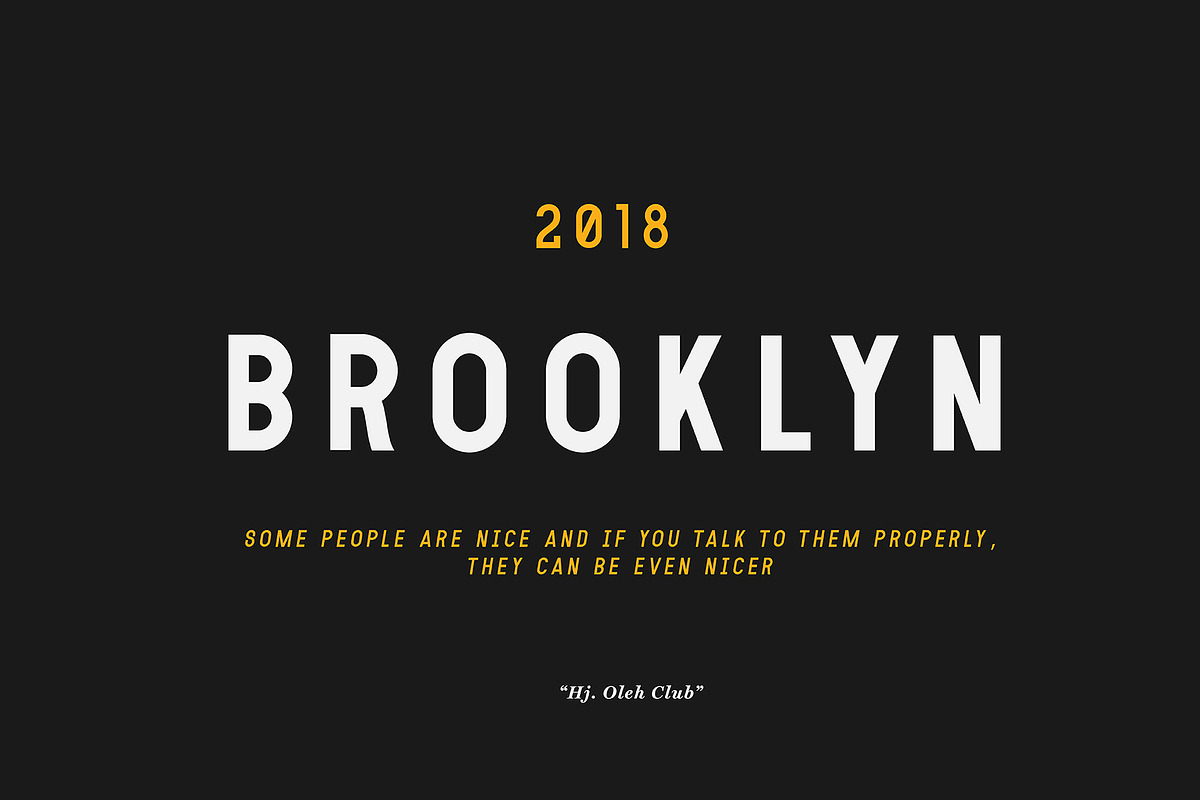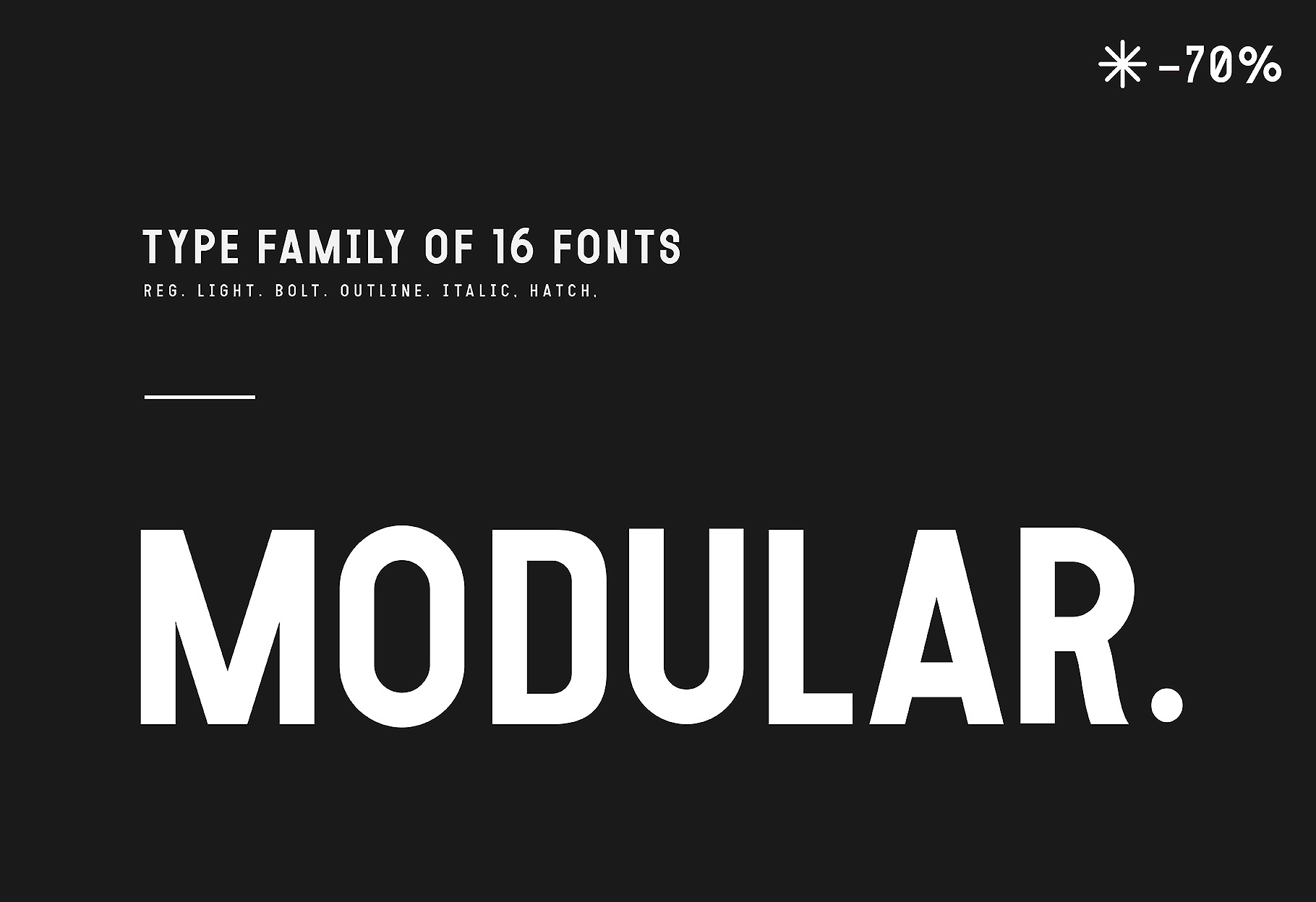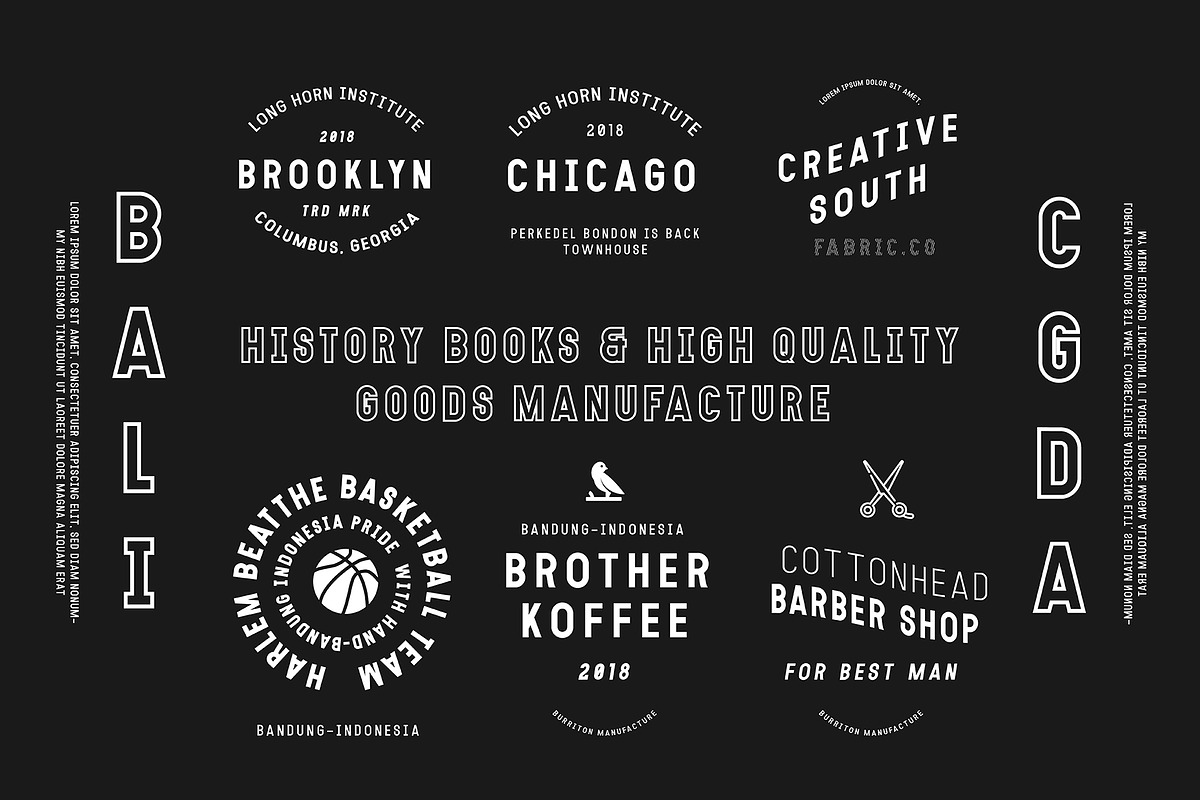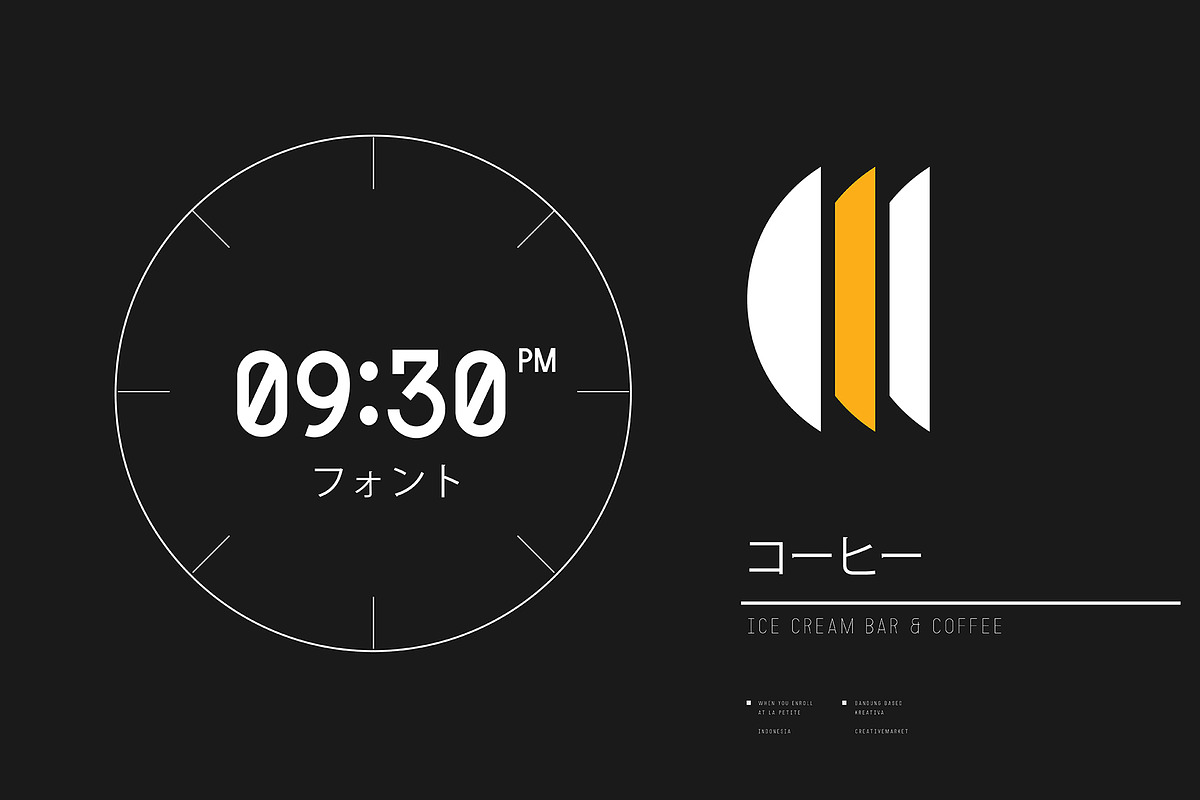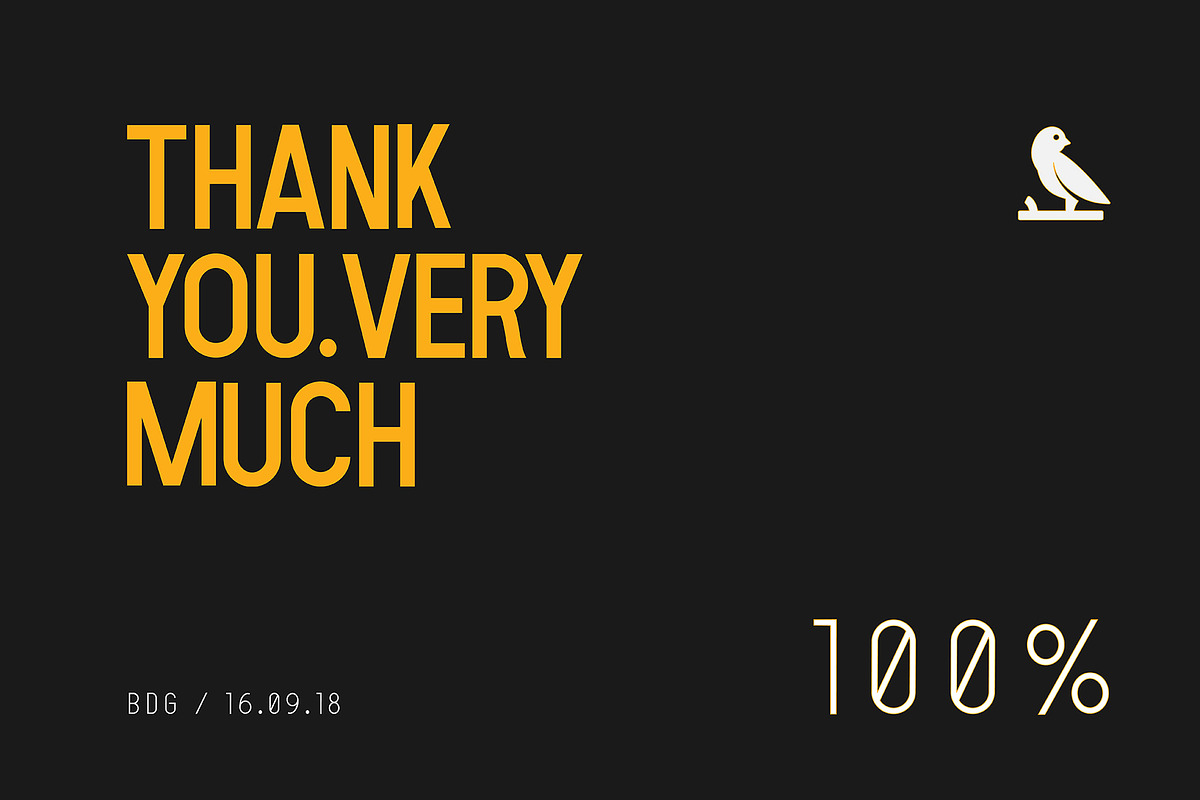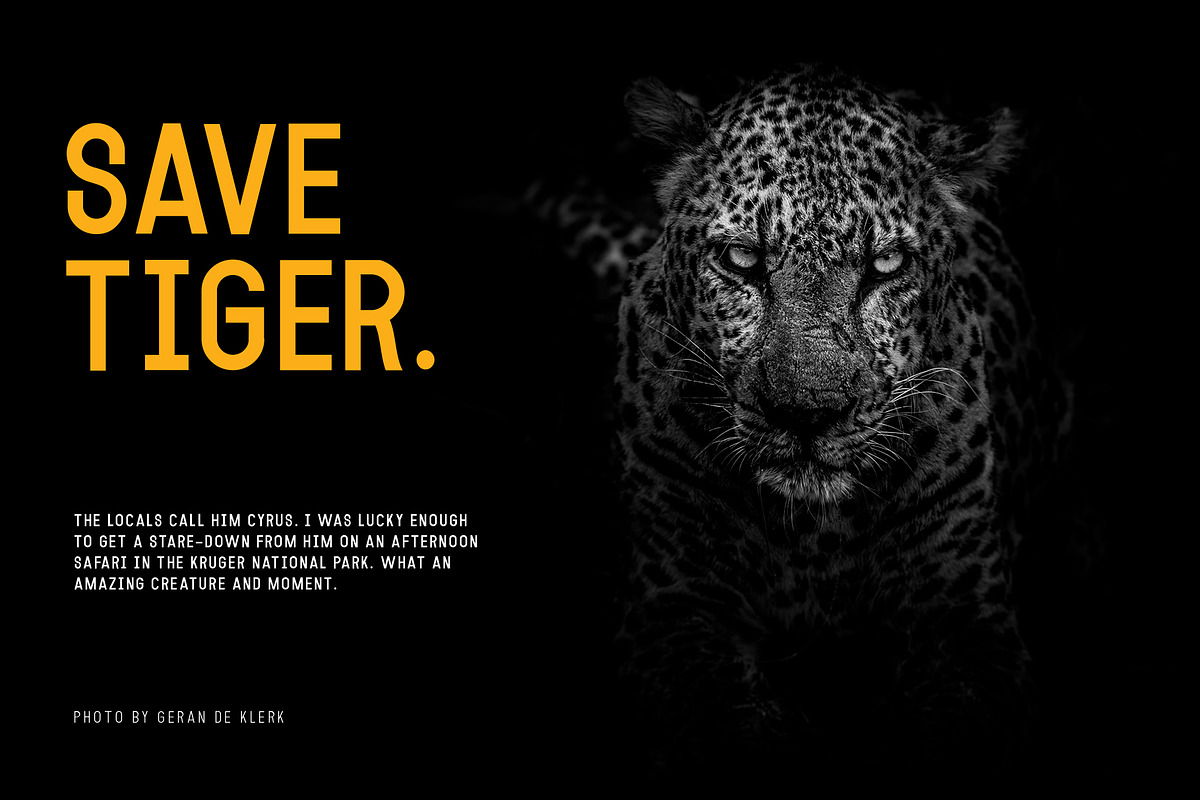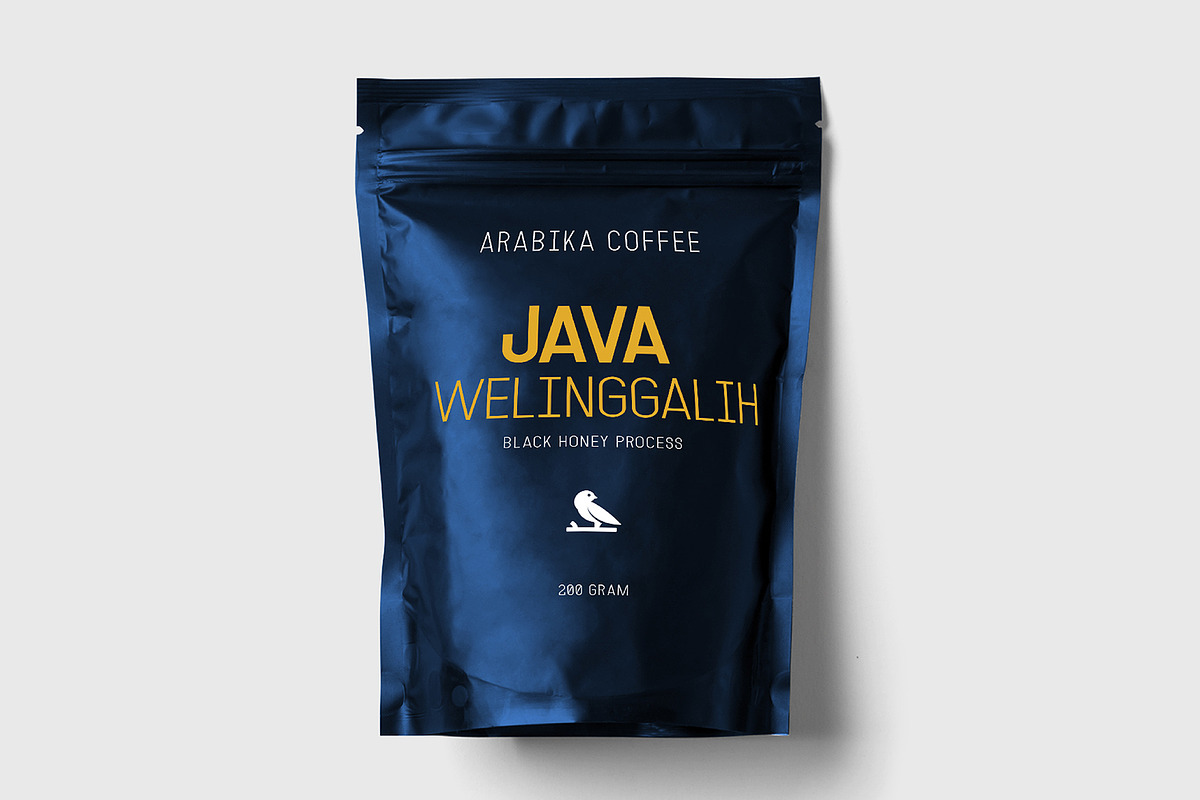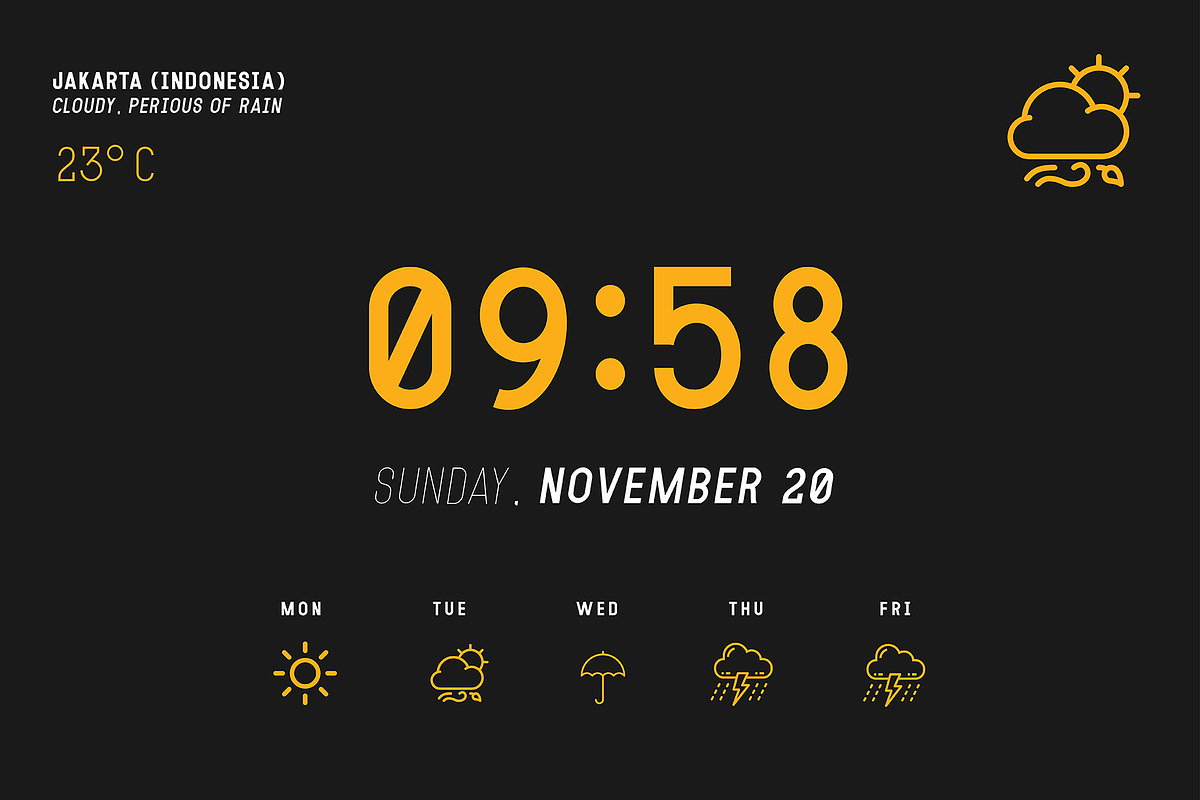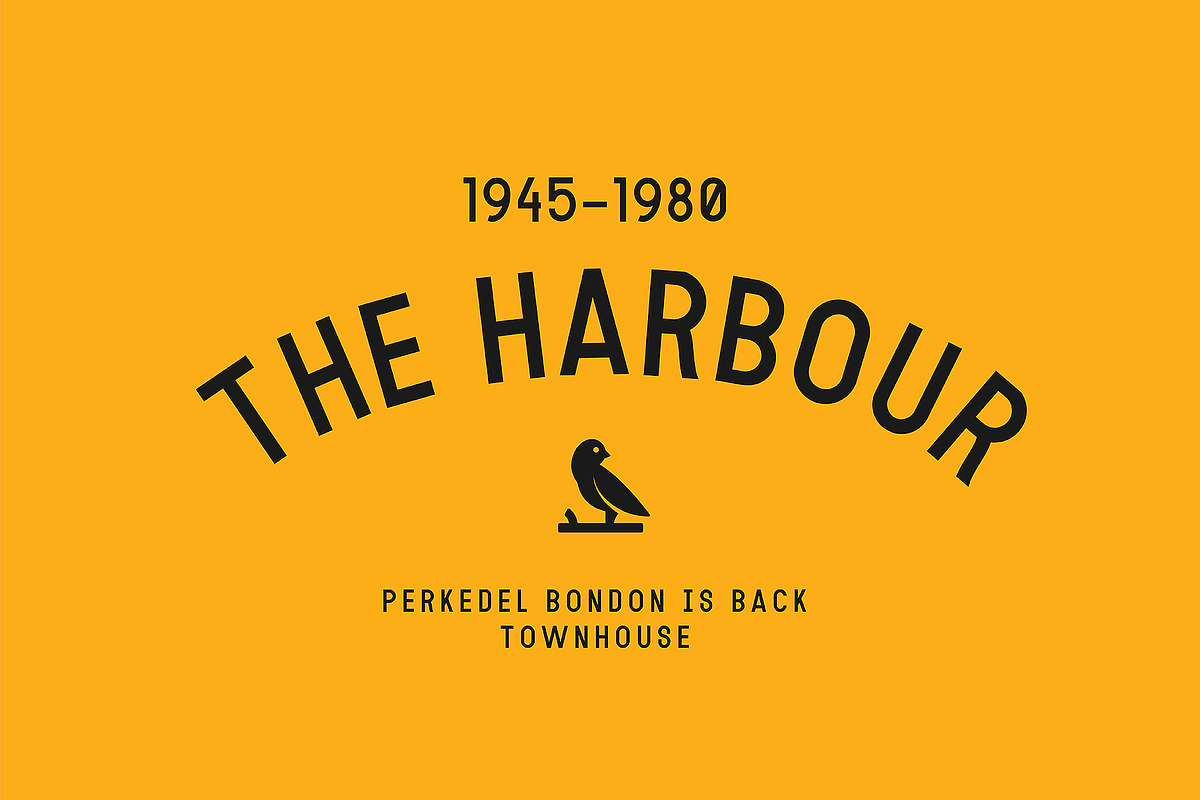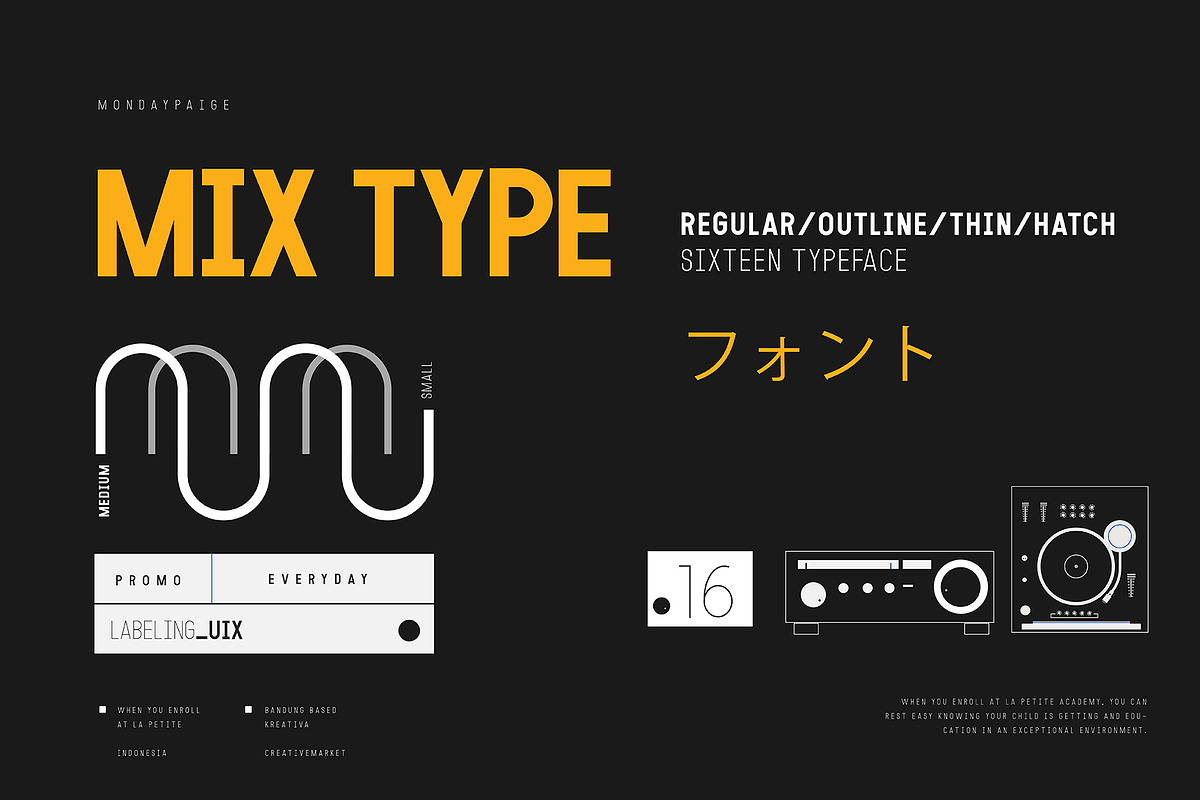
MODULAR - 16 FONTS
Modular is Uppercase typeface with strong character, unified, and articulate, smooth curves, all caps display with total 16 weights.
Inspired by precision of computer terminal, application, clean layout. Modular unified letterform, uppcase are excel in User Interfaces Experience, Headline, Stand alone display and short paragraph or contents. Each font in the family can stand on its own, dynamic and authoritative in their own right refer display on 11.
Modular perfect works great in any branding, logos, magazines, films projects, badges, packaging
16 Fonts Weight is
- Regular - 6 fonts
- Modular 2
- Modular 4
- Modular 11
- Modular 14
- Modular 16
- Italics - 5 fonts
Modular Italic 2
Modular Italic 4
Modular Italic 11
Modular Italic14
Modular Italic16
Outline - 3 fonts
Modular Outline 11
Modular Outline 14
Modular Outline 16
- Italic Outline - 1 fonts
- Modular Italic Outline 11
- Hatch - 2 fonts
- Modular Hatch 2
- Modular Hatch 3